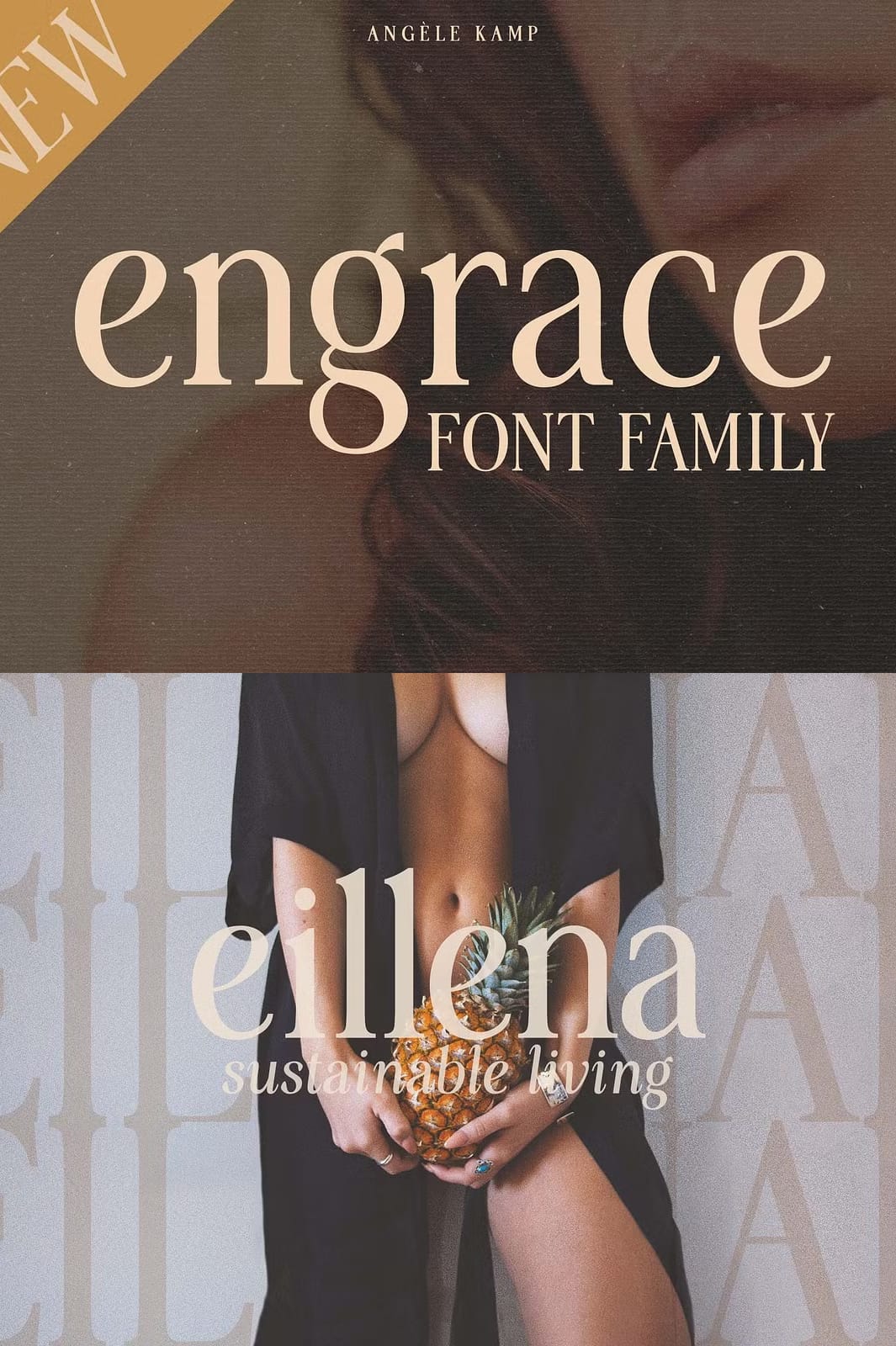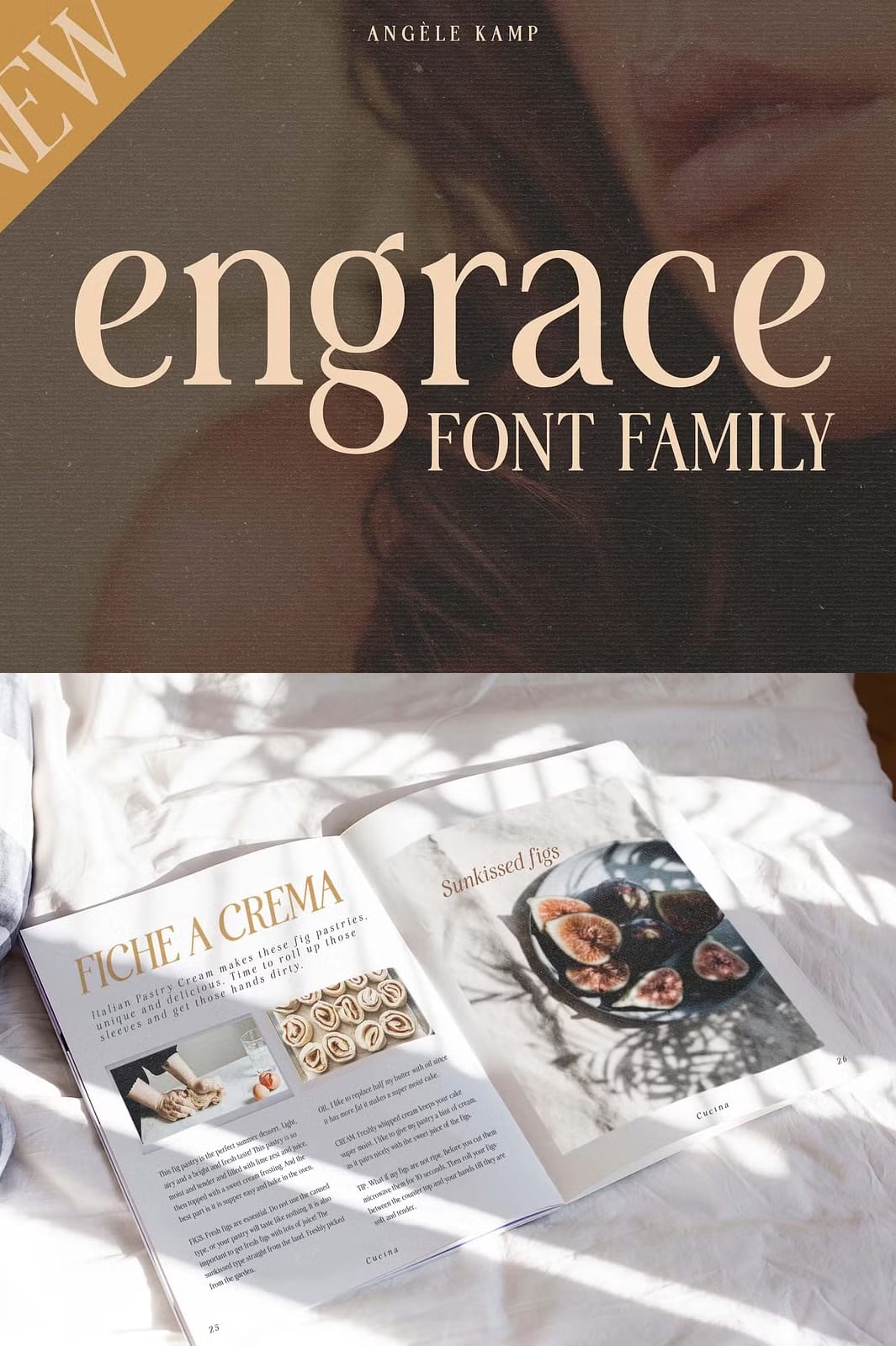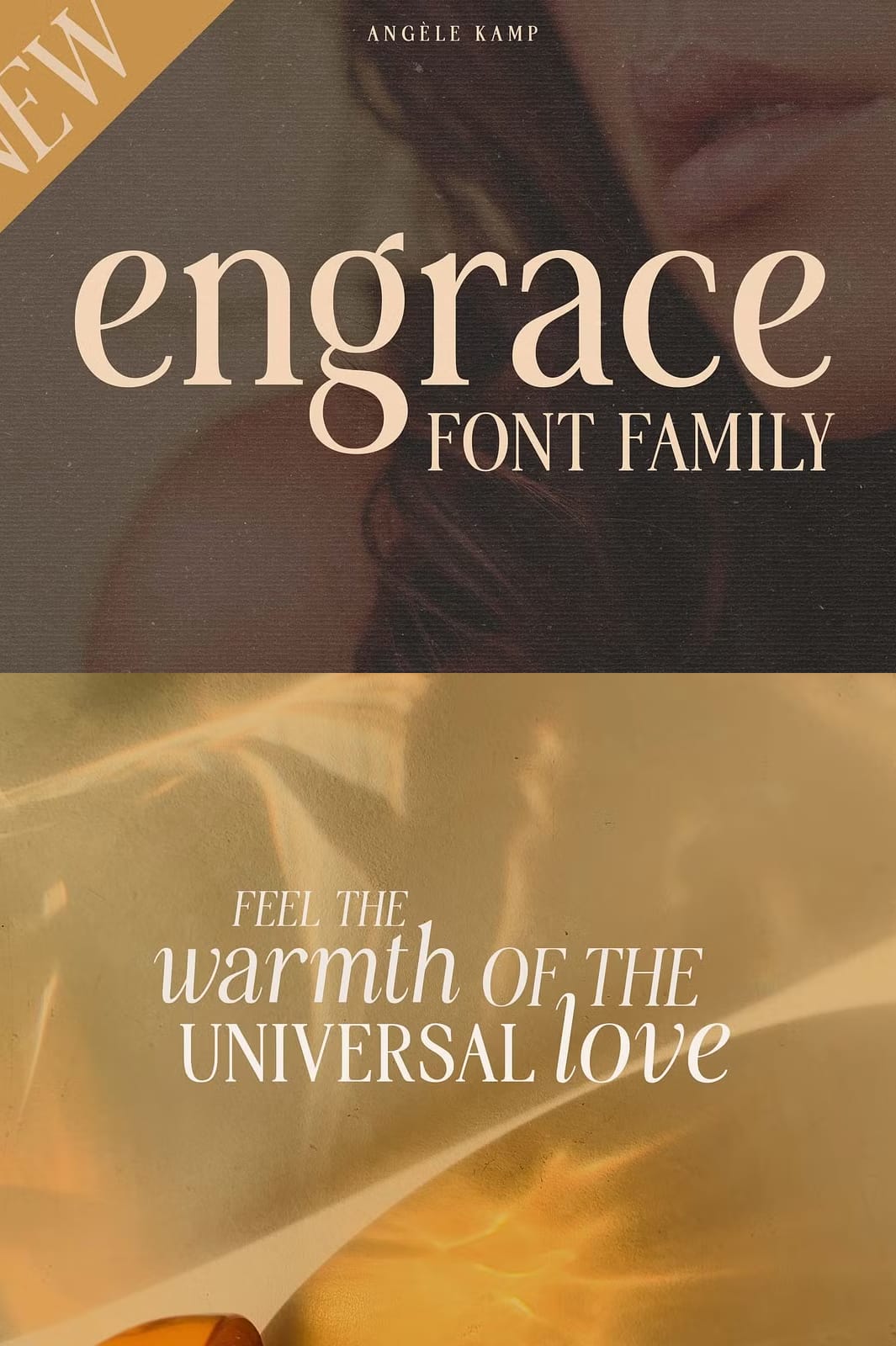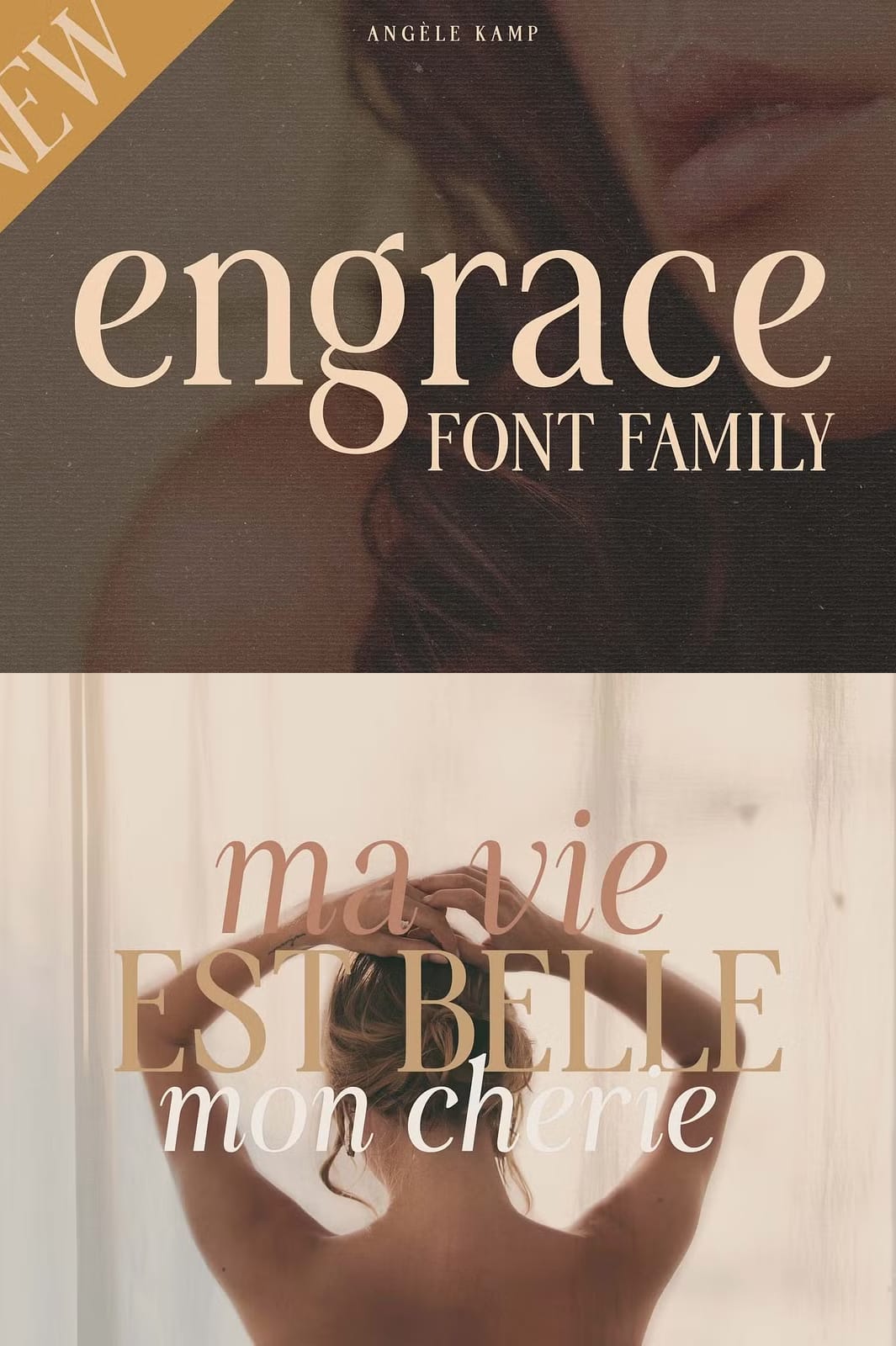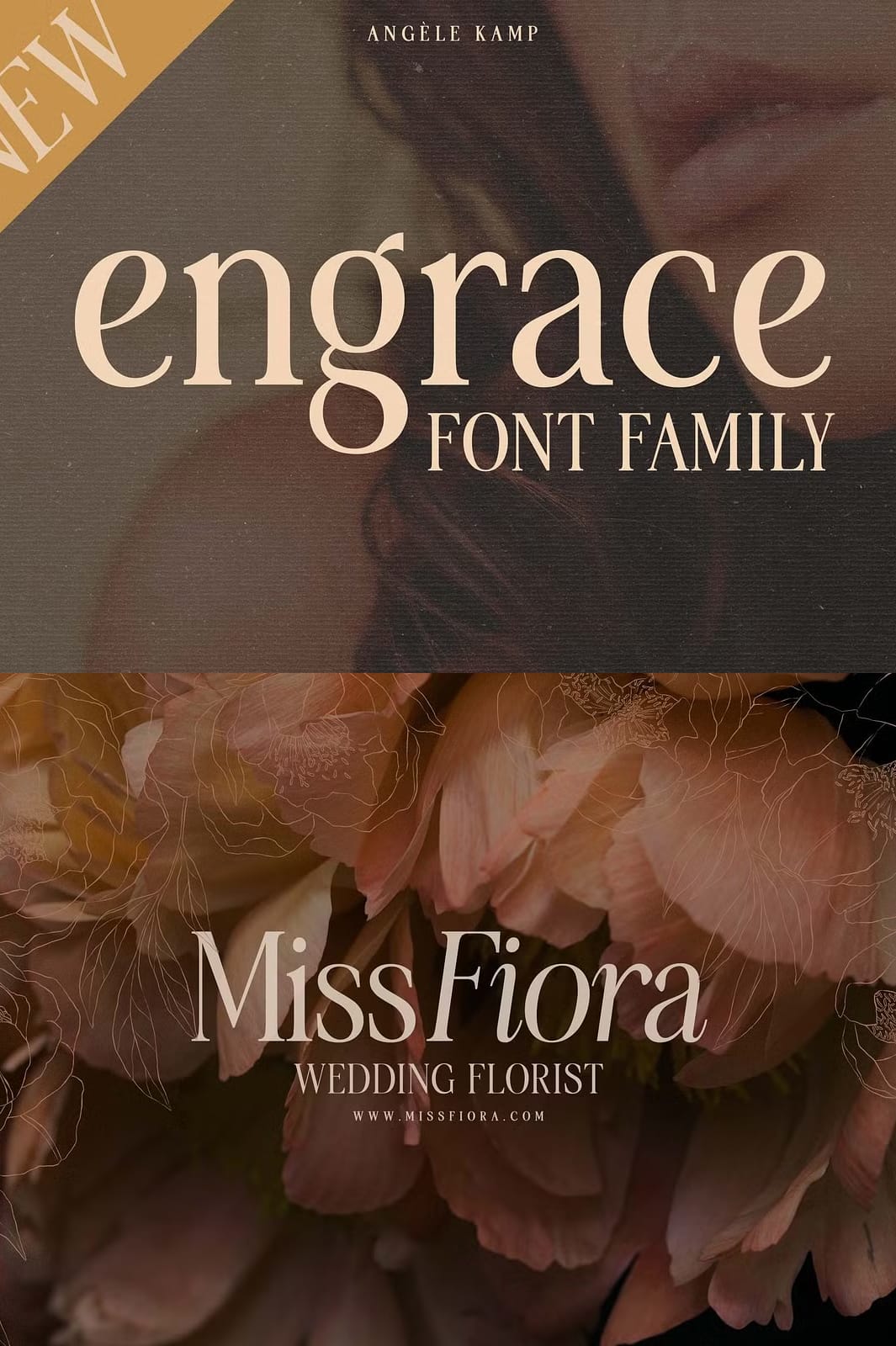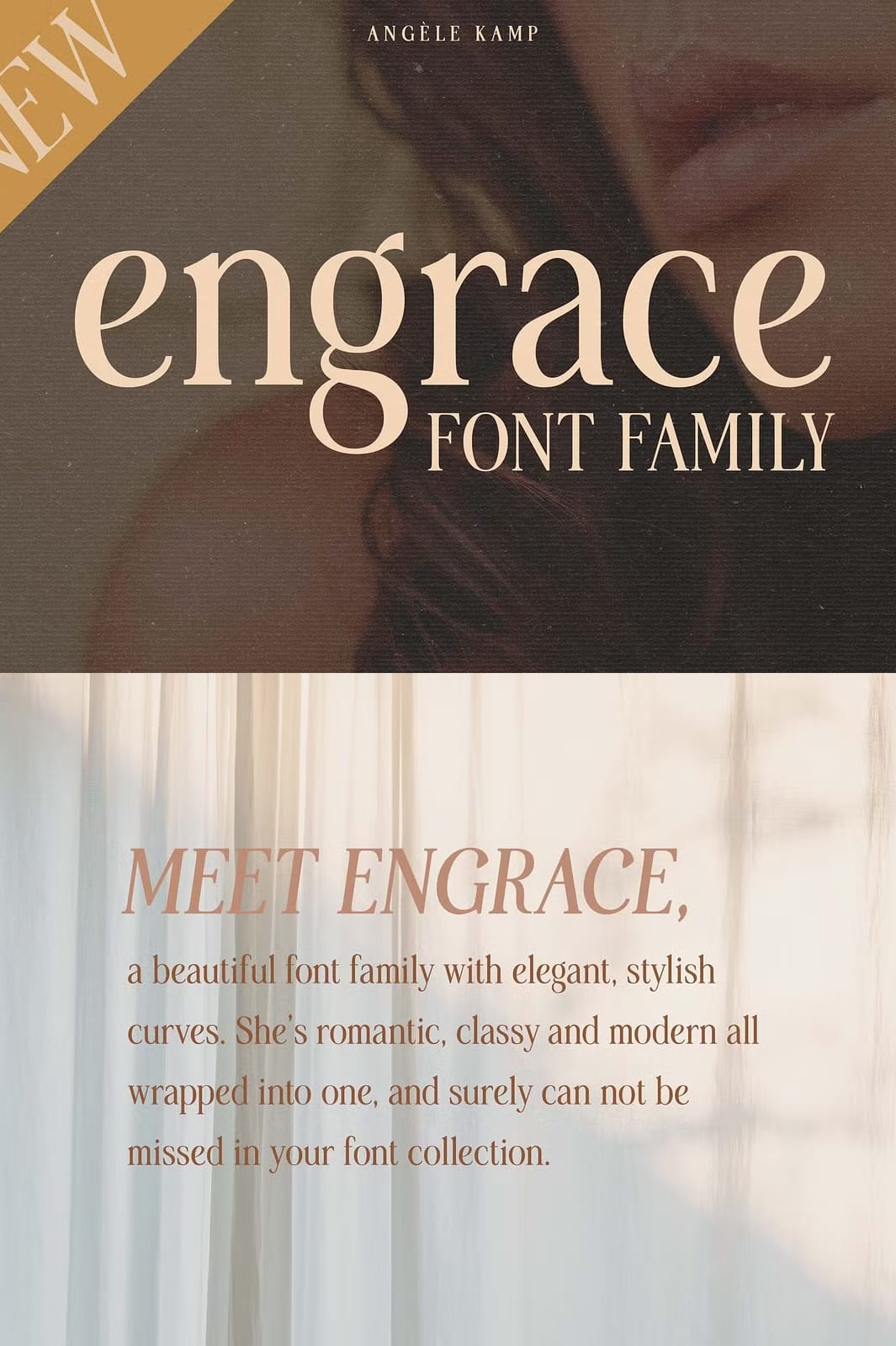
Engrace is a beautifully designed serif font family that embodies elegance, style, and modern sophistication. Its graceful curves and refined details make it a must-have for any font collection looking to add a romantic and classy touch. With its stylish yet versatile nature, Engrace seamlessly combines timeless luxury with contemporary design, making it ideal for a wide range of creative projects.
A Complete Font Family with Versatile Weights
The Engrace font family includes a comprehensive set of 8 fonts, covering 4 weights each for Regular and Italic styles — from Light to Bold. These fonts are available in OTF, WOFF, and Variable TTF formats, providing flexible options to accommodate various design needs and software compatibility. The inclusion of the variable font format allows designers to fine-tune weight variations smoothly, enhancing typographic control and creative freedom.
Variable Font for Maximum Flexibility
Engrace’s variable font capability is key to its versatility. Whether working on print or digital projects, the ability to adjust weight from light to bold without switching fonts saves both time and resources. This adaptability ensures that your typography remains consistent and harmonious across different media and design contexts.
Elegant Design Inspired by Nature and Luxury
Designed by Angele Kamp, a creative artist with a passion for florals, watercolors, and hand-lettering, Engrace reflects a feminine and elegant aesthetic influenced by natural beauty. Angele’s style embraces soft, neutral tones and floral motifs, which are evident in the gentle curves and sophisticated letterforms of this font family. This intimate connection to nature and artistry lends Engrace a distinctive character appropriate for projects seeking a high-end, fashionable look.
The Designer Behind Engrace
Angele Kamp’s design expertise spans a variety of mediums including illustration, font design, and watercolor art. Her creations emphasize elegance and subtlety, making Engrace a perfect representation of her artistic vision. With this font, Angele brings together her love for floral elements and modern typography, offering a serif font that feels both luxurious and accessible.
Perfect Typeface for Luxury and Modern Projects
Engrace excels in delivering sophistication to your design work, making it an excellent choice for branding, editorial layouts, invitations, and web design that targets a stylish audience. Its elegant yet readable characters lend themselves well to both large display settings and smaller body text. This balance of beauty and practicality ensures your message is communicated with clarity and grace.
- Elegant serif font with romantic and classy appeal
- Complete family of 8 fonts with multiple weights and italics
- Variable fonts for precise weight adjustments
- Suitable for luxury branding, fashion, wedding invitations, and editorial content
- Designed by Angele Kamp with inspiration from nature and floral themes